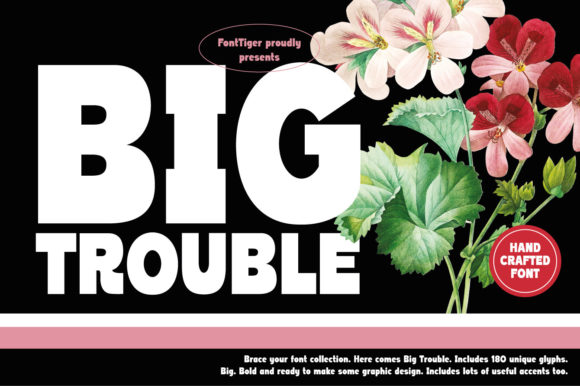
Welcome to the realm of typography, where artistry and expression converge! Allow us to introduce you to Big Trouble font, a captivating display font that embodies boldness and edginess. Prepared by FontTiger, this font family is not just a collection of characters; it's a symphony of strokes that dances across the digital canvas, leaving a trail of visual delight.
Picture this: you're crafting a captivating title in Canva, seeking a font that exudes confidence and demands attention. Look no further than Big Trouble. Its carefully crafted letterforms command presence, turning ordinary words into striking statements. Each glyph is meticulously designed to pack a punch, ensuring your message resonates with power and originality.
With Big Trouble, you're not confined to conventional typography. Unleash your creativity and experiment with unconventional letter combinations, creating unique compositions that capture the imagination. The font's wild nature encourages exploration and invites you to push the boundaries of design.
Beyond its aesthetic appeal, Big Trouble is engineered for readability and versatility. Whether you're creating eye-catching headlines, alluring logos, or impactful social media graphics, this font delivers clarity and impact. Its crisp lines and distinct letterforms ensure that every character shines, enhancing the overall impact of your designs.